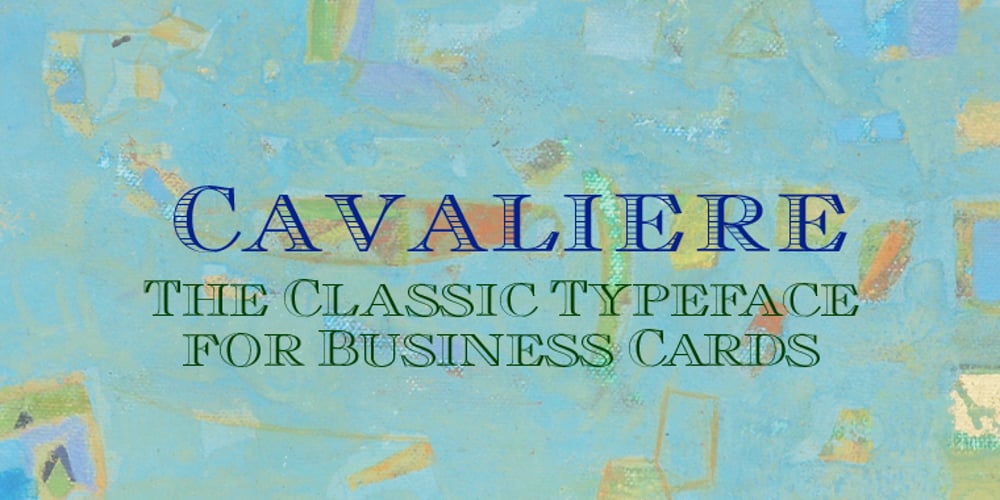
Cavaliere Font Family was designed by Gert Wiescher and published by Wiescher Design. Cavaliere contains 4 styles and family package options. Chevalier in French means Cavaliere in Italian, that’s why I called this font Cavaliere. This font is my version of that (a little bit aged and stiff) classic typeface seen so many times on business cards all over the world. To me that typeface was on business cards since the beginning of time! Must be one of the most traditional typefaces in the world. Every business card shop used to have it as a staple diet. I sell only the pair, but for a very reduced price. The difference between upper and lowercase letters is less dramatic than in the old versions and I made my font a little more elegant. After all there are better ways and fonts to design business cards, but if you go for the traditional thing, you might as well bring tradition up-to-date. Your alternate business card typeface designer, Gert Wiescher.